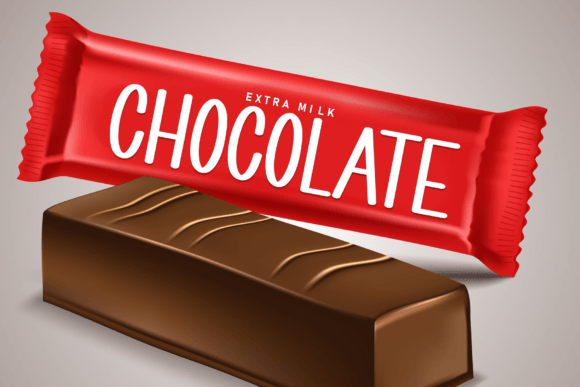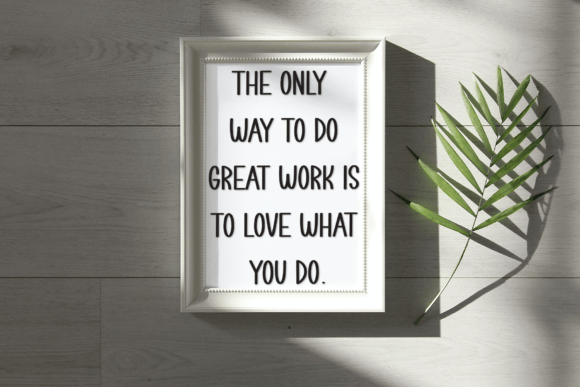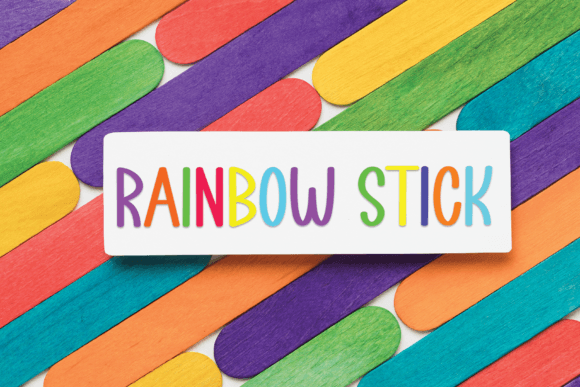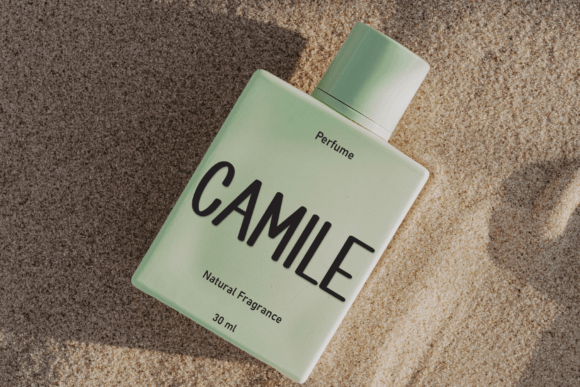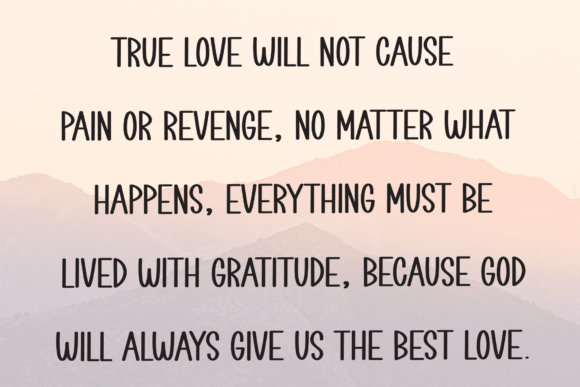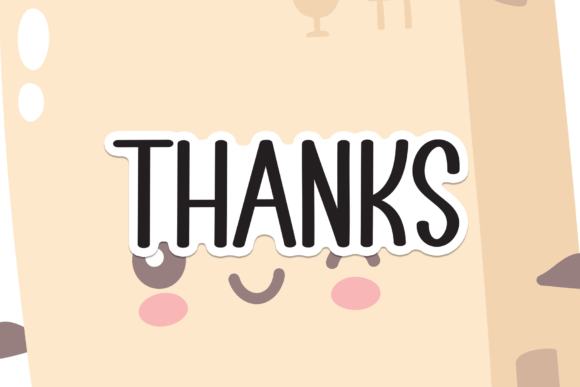
The Magic of Handwritten Fonts: Unleashing Creativity with Cartoon Box Font
Have you ever stared at a blank canvas, feeling the spark of creativity ignite within you? The blank page can be both a blessing and a curse – a chance to start anew, yet a daunting task to fill with something meaningful. But what if you had the perfect tool to unlock your imagination? Enter the whimsical world of handwritten fonts, where the lines blur between reality and fantasy.
At the heart of this creative playground lies the Cartoon Box Font, a delightful and friendly handwritten font that’s as versatile as it is charming. Its natural, unique style makes it the perfect companion for designers looking to infuse their projects with a touch of warmth and personality. Whether you’re crafting a children’s book, designing a social media campaign, or simply creating a logo, Cartoon Box Font is the ultimate sidekick to help bring your ideas to life.
Key Features of Cartoon Box Font
- Unique Characteristics: Cartoon Box Font is a playful, hand-drawn font that features a box-like design with rounded edges, giving it a friendly and approachable feel.
- Language Support: Cartoon Box Font supports a wide range of languages, including Latin, Greek, Cyrillic, and many others, making it a versatile choice for international designs.
- Stylistic Sets: This font includes multiple stylistic sets, allowing designers to experiment with different styles and moods, from bold and playful to subtle and elegant.
- Scalability: Cartoon Box Font is designed to be highly scalable, making it suitable for use in a variety of contexts, from small text to large headings and titles.
Cartoon Box Font Review
At first glance, Cartoon Box Font seems like a fun and playful addition to any design project. The font has a nostalgic feel to it, reminiscent of classic cartoons and children’s TV shows.
- The font’s rounded edges and smooth curves create a sense of warmth and approachability.
- The various font weights and styles offer a range of options for designers to choose from.
- The font is highly customizable, allowing designers to adjust the color, size, and spacing to suit their needs.
- The font may not be suitable for formal or professional designs, as its playful nature can come across as unprofessional.
- The font’s characters can be quite simplistic, which may limit its use in designs where intricate details are required.
- The font may not render well on certain devices or platforms, which could lead to display issues.
Cartoon Box Font is a fun and versatile font that can add a playful touch to any design project. While it may have some limitations, it’s a great choice for designers looking to create a lighthearted and approachable atmosphere. With careful consideration and use, Cartoon Box Font can be a valuable addition to any design toolkit.
Getting the Most Out of Cartoon Box Font
To get the most out of Cartoon Box Font, use it to create playful and eye-catching text elements, such as:
– Headlines and titles
– Captions and quotes
Cartoon Box Font is ideal for:
– Children’s books and educational materials
– Advertising and marketing campaigns
– Social media and online content
– Branding and packaging design